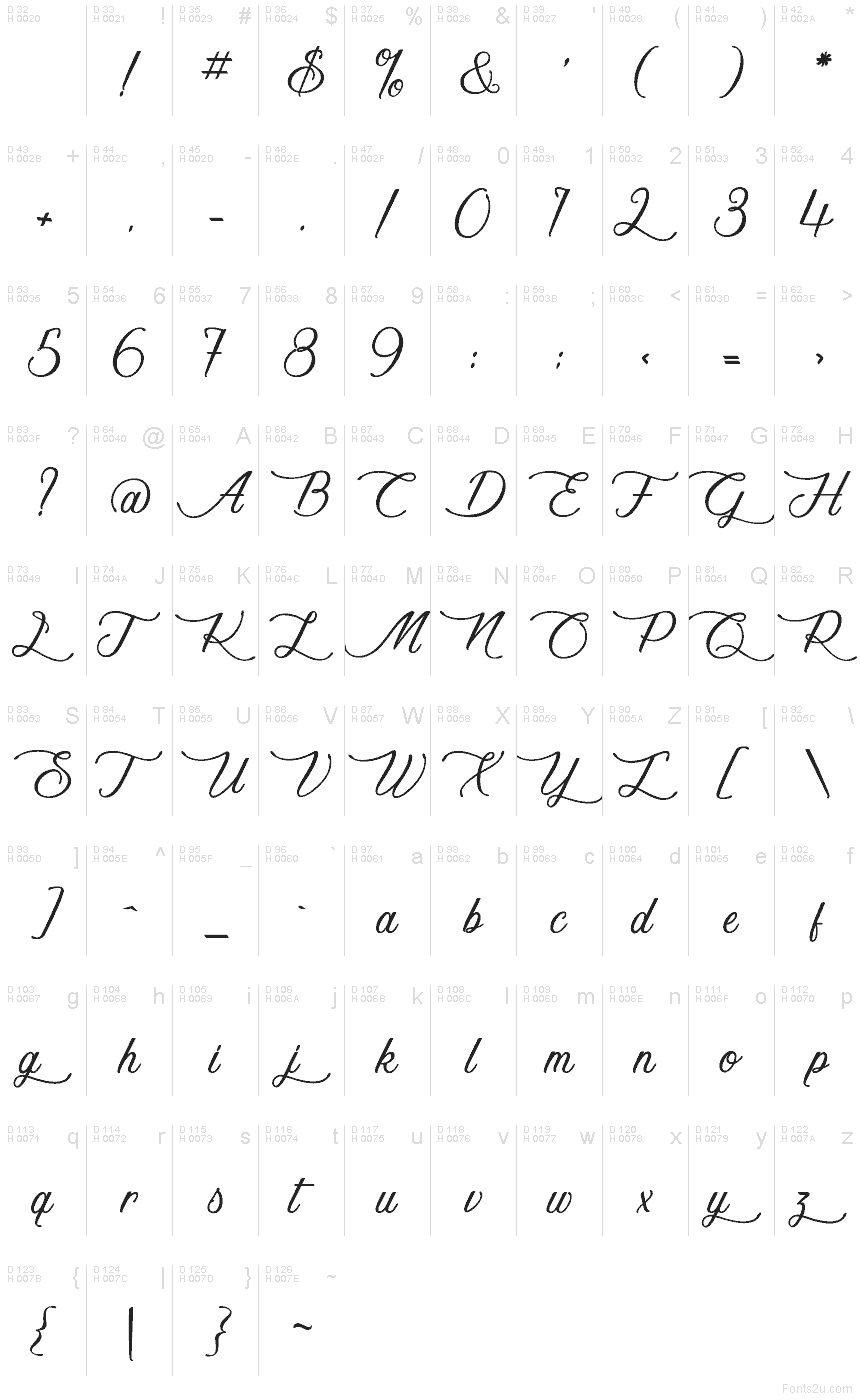
Scriptorial
Scriptorial font by Cat.B is a free calligraphy font with elegant, flowing, and decorative strokes. Its graceful and sophisticated appearance resembles that of handwritten characters. With unique accents and loops, the letters individually appear beautiful and are elegantly connected to achieve harmony.
With its extravagant presence, Scriptorial elevates your advertisements or campaigns for cosmetics products as well as invitations for special occasions. Use it within logos to showcase elegance or in magazines to add flair. Also integrate the font in publication covers, labels design, body texts, menu items’ description or typography art projects.